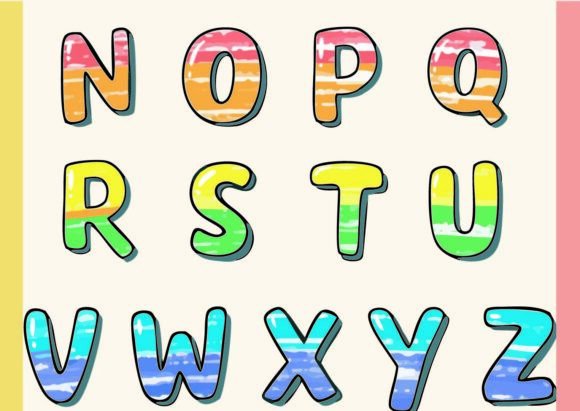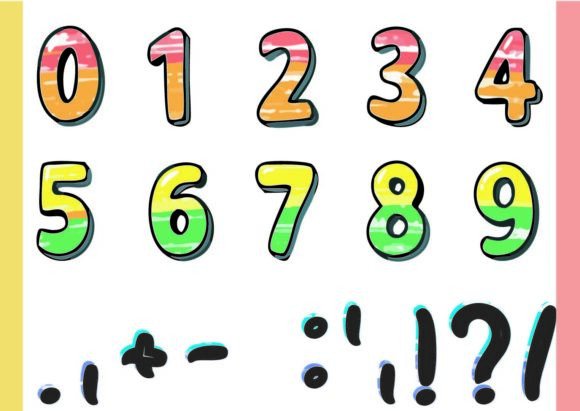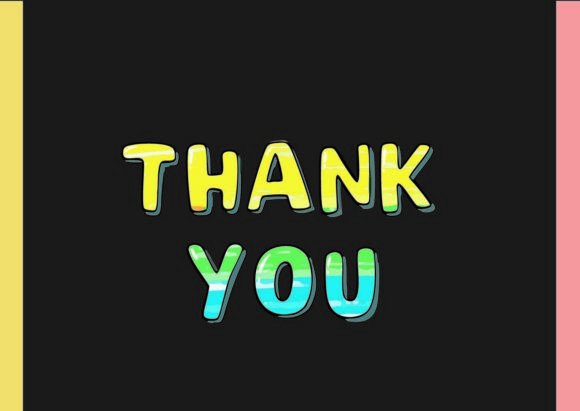
Evelyn Font: A Colorful Heaven for Designers and Crafters
Are you tired of using the same old fonts in your designs? Look no further than the Evelyn Font, a vibrant and unique color font that will take your typography to the next level. This stunning font features a complex set of paths and connections in every single glyph, making each one a miniature typographic painting.
A Colorful Font Like No Other
The Evelyn Font is a true standout in the world of typography. What sets it apart is that every single glyph has a different set of colors, creating a colorful heaven for designers and crafters to explore. Whether you’re working on a branding project, a craft project, or just want to add some visual interest to your designs, this font is sure to impress.
What Makes Evelyn Font So Special?
So, what makes the Evelyn Font so special? For starters, the level of detail and complexity in each glyph is truly remarkable. If you look closely, you’ll see intricate paths and connections that add depth and visual interest to each character. This level of craftsmanship is rare in the world of typography, making Evelyn Font a true treasure for designers and crafters.
Use Evelyn Font in a Variety of Projects
The Evelyn Font is incredibly versatile, and can be used in a wide range of projects. Here are just a few ideas to get you started:
- Branding and logo design: Add a pop of color and visual interest to your brand identity with Evelyn Font.
- Crafting and scrapbooking: Use Evelyn Font to add a personal touch to your craft projects, such as scrapbooking, card making, and more.
- Graphic design: Use Evelyn Font in your graphic design projects, such as brochures, flyers, and posters.
- Digital art: Experiment with Evelyn Font in your digital art projects, such as illustrations and mixed media.
Tips for Working with Evelyn Font
Here are a few tips for getting the most out of Evelyn Font:
- Experiment with different colors: While the font comes with a pre-set color palette, feel free to experiment with different colors to find the perfect combination for your project.
- Play with scale: Evelyn Font looks great at a range of sizes, from small and delicate to large and bold.
- Mix and match: Don’t be afraid to mix and match different glyphs and characters to create a unique look.
In conclusion, the Evelyn Font is a true gem for designers and crafters. With its complex sets of paths and connections, vibrant color palette, and compatibility with a range of design software, this font is sure to inspire and delight. Whether you’re working on a branding project, a craft project, or just want to add some visual interest to your designs, Evelyn Font is a must-have in your typography toolkit.